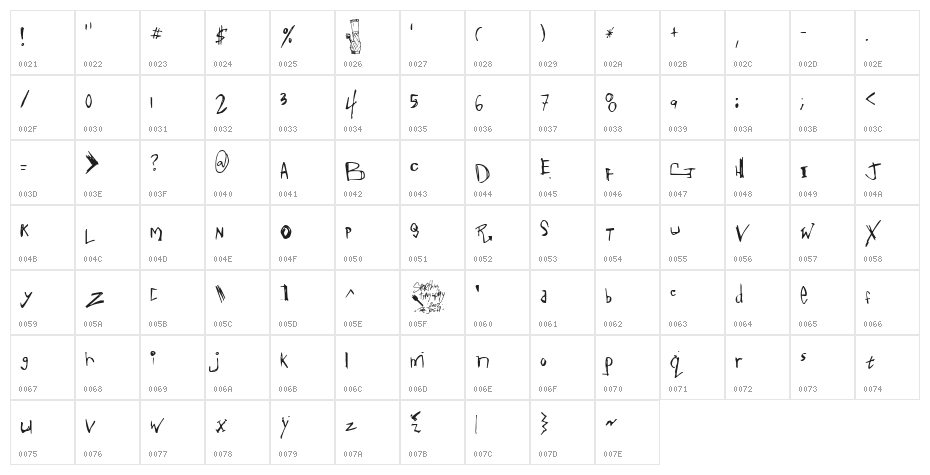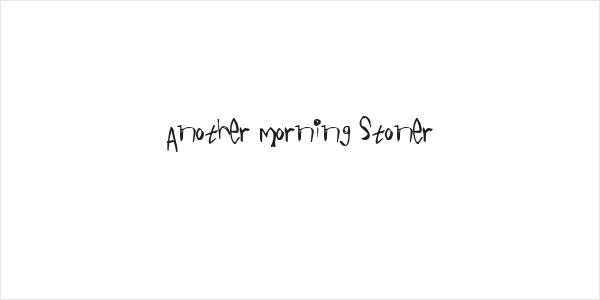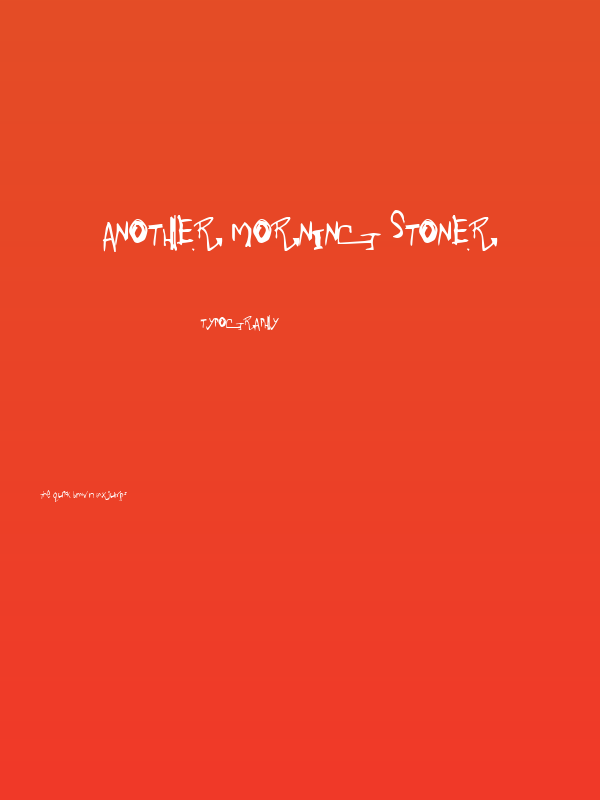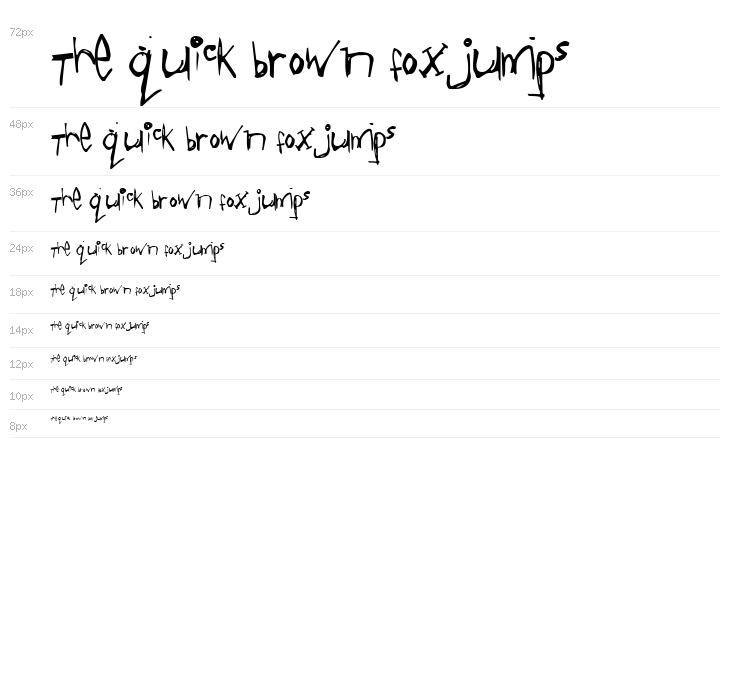
Another Morning Stoner Font
Another Morning Stoner Description
This font features a highly expressive and unconventional style, characterized by its erratic and playful letterforms. Each character exhibits a unique, hand-drawn appearance with varying stroke thicknesses and irregular shapes, giving it a distinctly artistic and rebellious feel. The uppercase letters are bold and dynamic, while the lowercase letters maintain a quirky and whimsical charm. Numbers and special characters follow the same eclectic design, adding to the font's overall eccentricity. This font is ideal for projects that require a bold statement or a creative, informal touch.
| Use Case | Headlines, Logos, Artistic projects |
| Proposed Projects | Album covers, graffiti art, posters, creative branding, and any project needing a bold, artistic flair. |